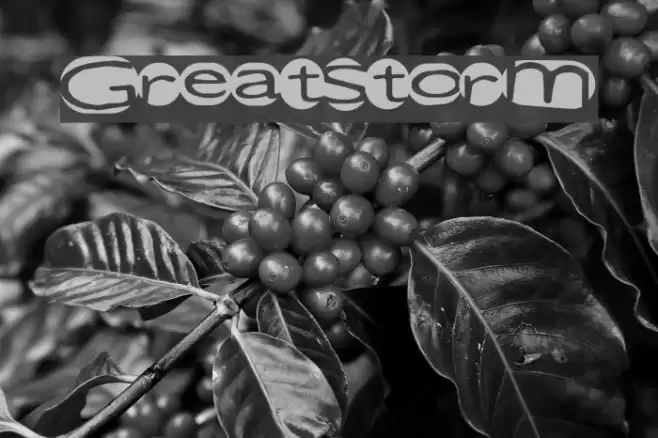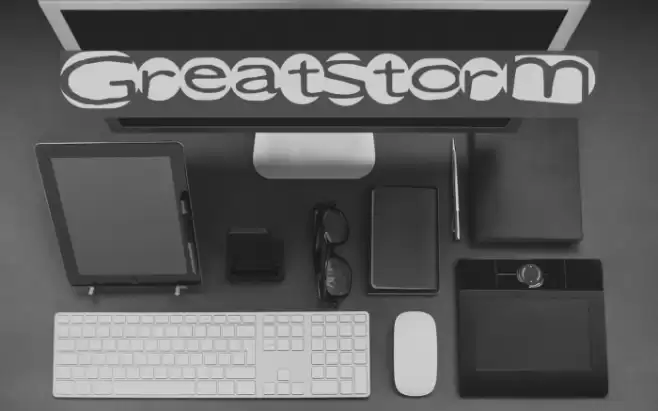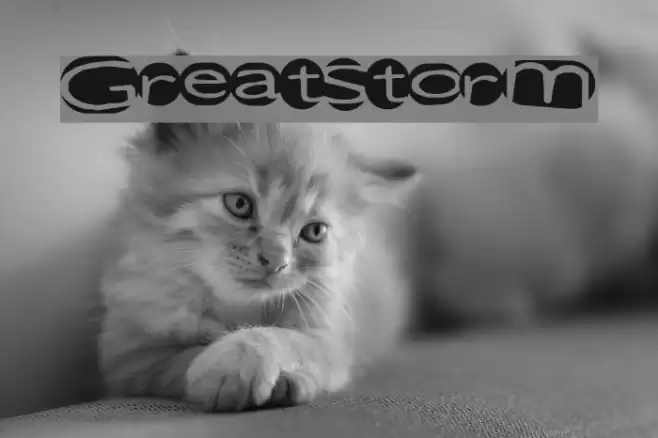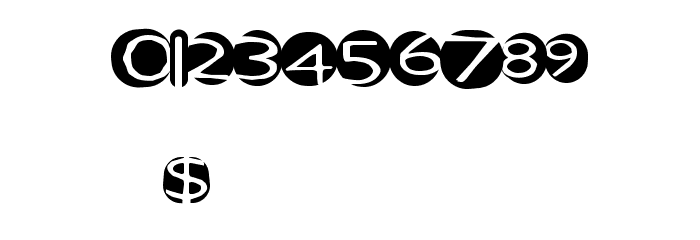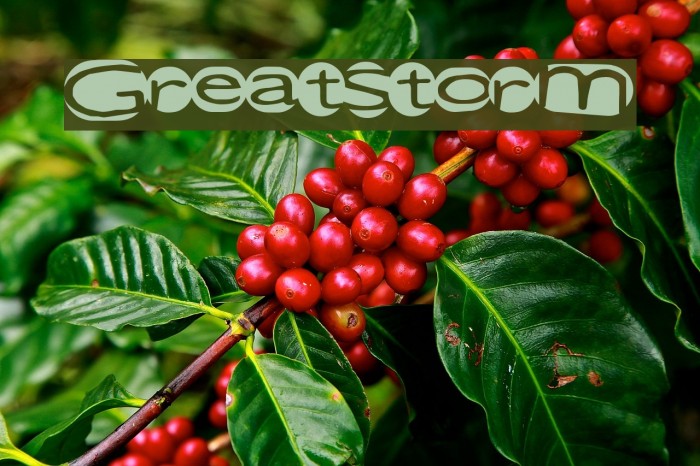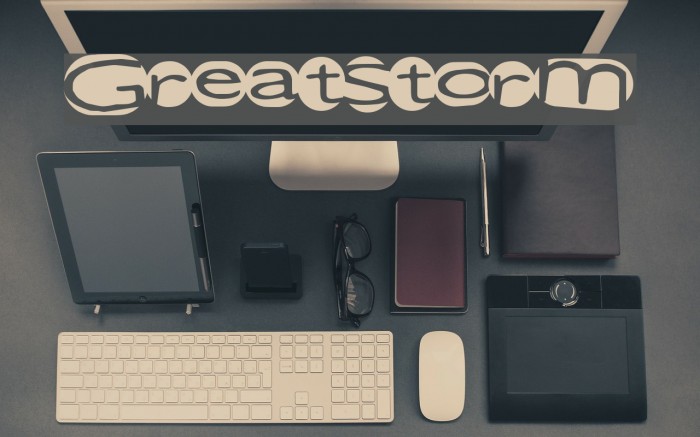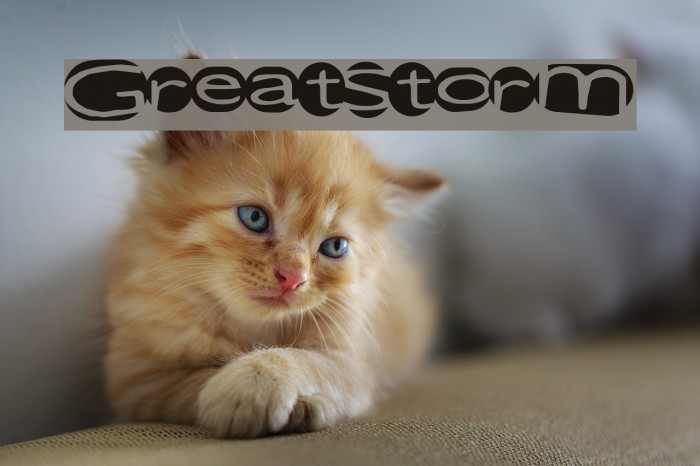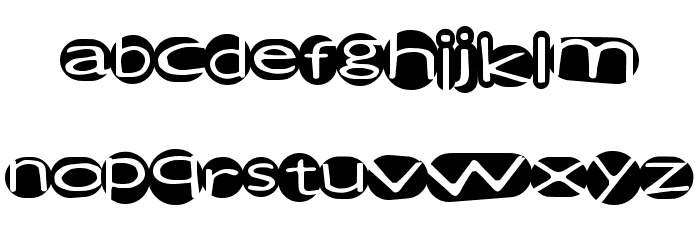
GreatStorm Font
GreatStorm Description
This font features a bold and dynamic style with a playful, almost cartoonish appearance. The characters are heavily rounded and filled, creating a sense of depth and movement. Each letter is uniquely designed with a combination of thick and thin strokes, giving it a distinctive and eye-catching look. The uppercase and lowercase letters maintain a consistent style, while the numbers and special characters complement the overall design. This font is perfect for projects that require a fun and engaging visual impact.
A bold, playful font with rounded, dynamic characters from Decorative fonts.
- Proposed Projects: Ideal for children's books, playful branding, posters, and creative advertising.
- Overall Style: Playful, Dynamic
- Use Case: Logos, Posters, Headlines